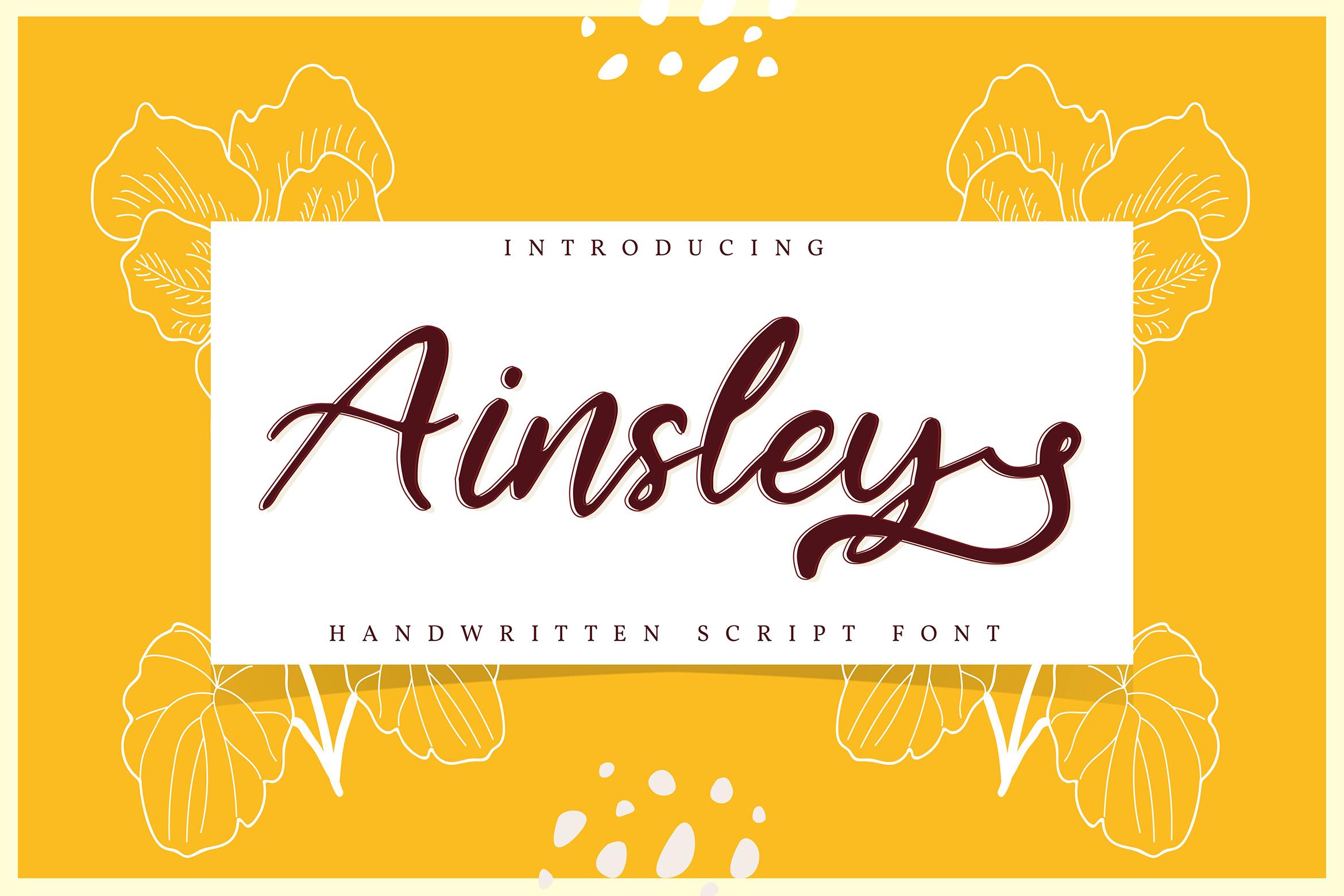
Ainsley Font Description
Ainsley is a dazzling and cursive script font. It has a sophisticated touch and it will most certainly have an unforgettable impact on your creative ideas. Ainsley is PUA encoded which means you can access all of the glyphs and swashes with ease.